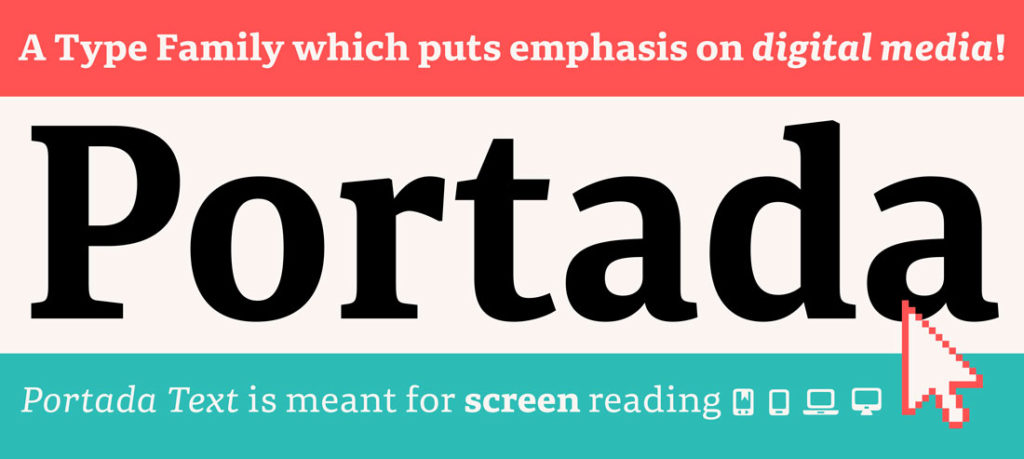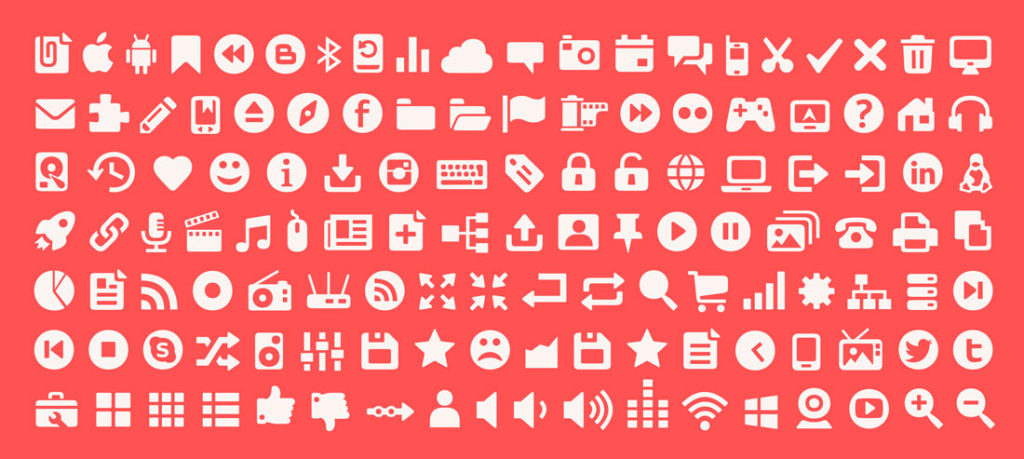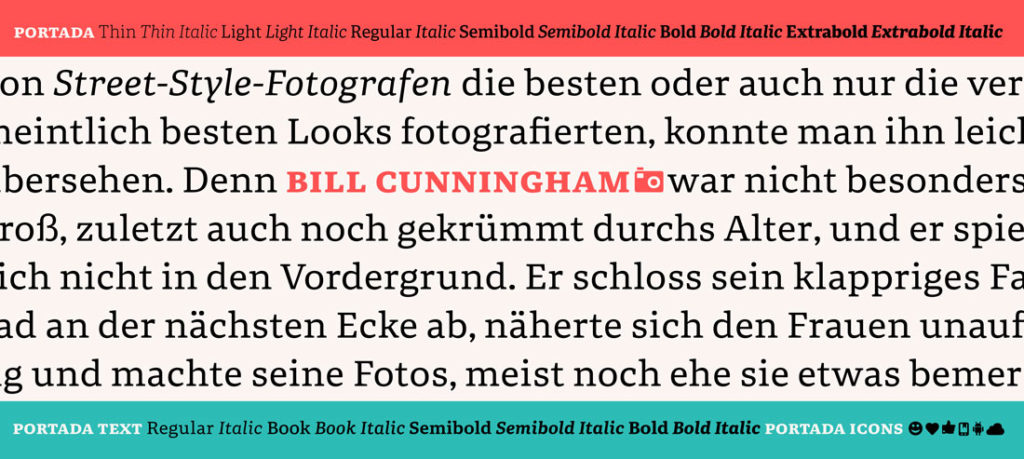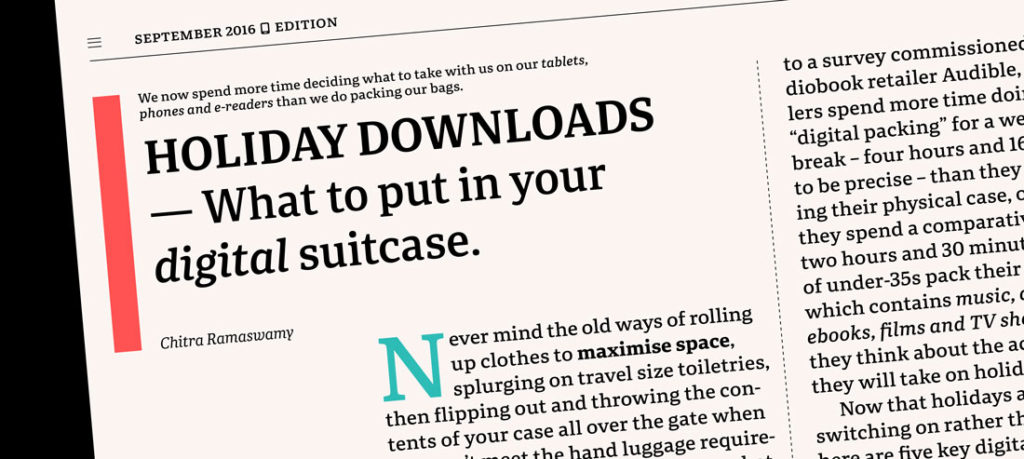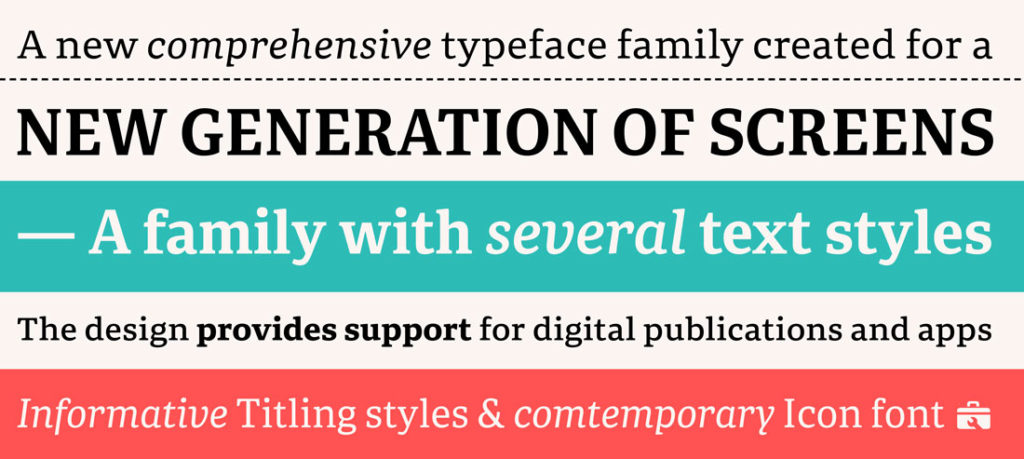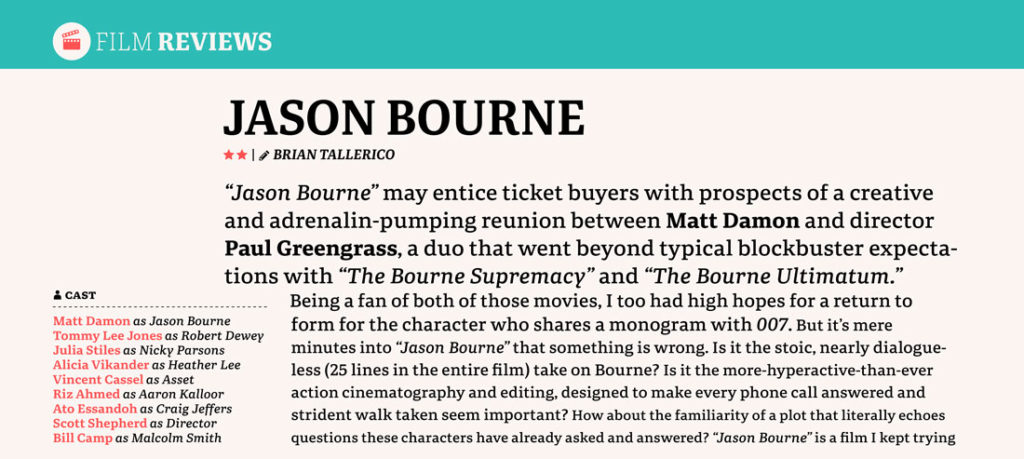
Name: Portada
Designers: Veronika Burian and José Scaglione
Foundry: Type-Together
Release Date: September 2016
Back story: When it comes to restrictive screen and digital environments, designers typically favor the increased legibility of sans serif. But designers Burian and Scaglione decided to turn that convention on its head with their latest typeface, Portada, a serif (yep, that’s sans sans) that rises admirably to the challenges posed by e-ink, harsh grids, and Retina capability. Portada was originally commissioned as a titling typeface for Clarín, the largest newspaper in Argentina, to partner with its BFFs there (best font friends), Adelle and Adelle Sans. The commission was part of a larger redesign project meant to replace Whitney as the main titling typeface and provide a more modern, newsy, and refined feel to the publication.
Why’s it called Portada? “The name means cover page, front, or sleeve in Spanish,” says Burian. “Portada focuses primarily on typography for editorial design, especially for digital media. The underlying meaning seemed to fit well and has a nice sound to it, which is important for a typeface name.”
What are its distinguishing characteristics? Portada’s range of eight text styles, ten titling styles, and one icon set are available within two sub-families, Titling and Text. The Text version is characterized by sturdy serifs, wide proportions, and clear interior negative space adding up to excellent legibility. The terminals stop short of any degree of flourish in order to maximize digital clarity. The titling is a bit more delicate with a stronger stroke contrast and a vivid, calligraphically infused italic. Thanks to low contrast within the letterforms, all of the weights in the Portada family maintain an even color when set as long blocks or columns of scrolling text, keeping things easy on the eyes and minimizing reader fatigue. It retains some subtle calligraphic flourishes in its curves and instrokes that set it apart, giving it a warmth and personality not always evident in other serif faces meant for screens.
What should I use it for? Digital magazines, newspapers, your favorite novel, and all forms of continuous screen reading benefit from Portada’s features.
Who’s it friends with? Adelle Sans is a natural match. LFT Etica would work nicely, too, as would Leviathan.